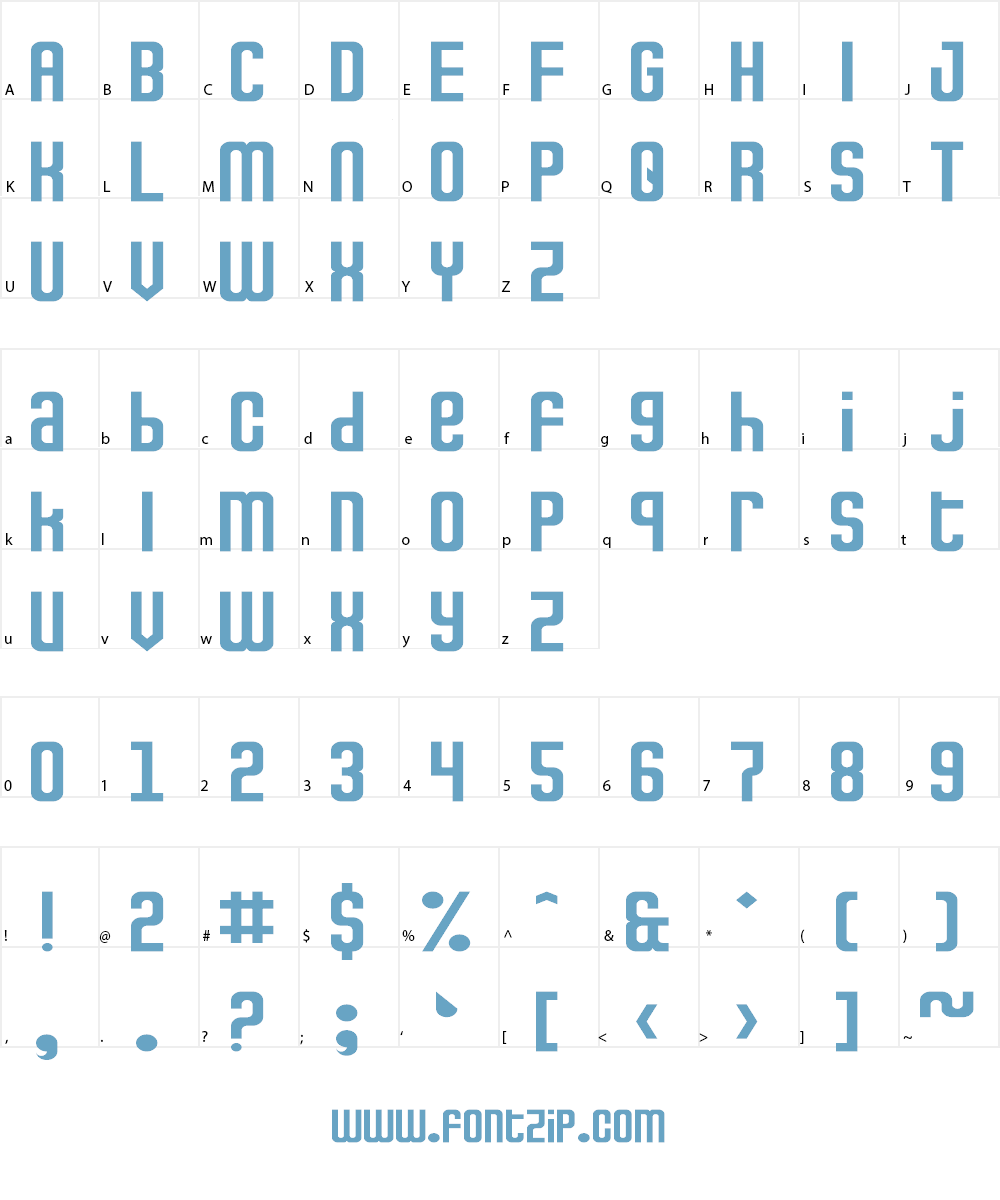
A font made for a friend's board game! This gives me a strong "film credits" feeling with its high impact and simple geometry.
RECENTLY UPDATED! Several glyphs were made slightly more clear to read.